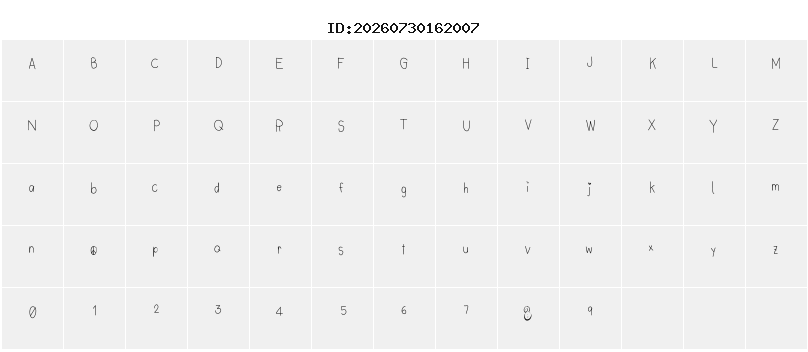
LyeMueLookKreung2 Preview
• Font Name: LyeMueLookKreung2
• Full Font Name: LyeMueLookKreung2
About LyeMueLookKreung2.ttf
LyeMueLookKreung2.ttf is a modern, elegant sans-serif font designed for ultimate readability and visual harmony. Perfect for branding, headlines, web design, and print materials.